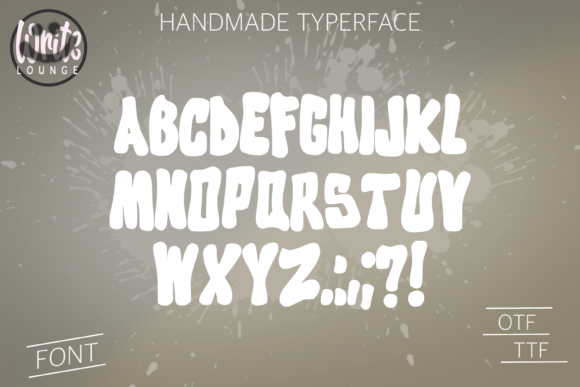
Unleash Your Creativity with Have a Break Font
Have you ever been in the middle of a design project, staring blankly at your screen, searching for that perfect font to bring your vision to life? That’s where the magic happens, and inspiration strikes. For designers who crave a touch of whimsy and a dash of nostalgia, we’ve got just the thing.
Meet Have a Break Font, a delightful display font designed to evoke a sense of good vibes and carefree spirit. Perfect for hippie-inspired flower projects, this font is sure to add a special retro touch to any design idea you can think of. Whether you’re working on a branding project, a social media campaign, or simply a personal art piece, Have a Break Font is a valuable addition to your design toolkit.
With its unique charm and retro flair, Have a Break Font is an instant mood booster for designers looking to add some personality to their work. So why not take a break from the ordinary and indulge in the delightful world of Have a Break Font?
Key Features of “Have a Break Font”
- Font Family: The “Have a Break Font” is a custom-designed sans-serif font, inspired by the classic Cadbury’s chocolate advertisements.
- Unique Characteristics: The font features a distinctive, rounded sans-serif design with a friendly and approachable feel, making it ideal for branding and advertising applications.
Have a Break Font Review
As a designer, I was excited to dive into the Have a Break Font, inspired by the iconic British chocolate bar. Here’s my honest take on this font.
- The font’s playful and fun vibe matches the brand’s personality.
- The letterforms are well-crafted, with a clear and legible design.
- The font’s weight and width variations provide flexibility for different design applications.
- The font’s rounded edges give it a soft and approachable feel.
- The font’s design may not be suitable for formal or professional projects.
- The font’s rounded edges may not be ideal for headings or titles that require boldness.
- The font’s width variations may not be suitable for narrow or long text blocks.
Overall, I think the Have a Break Font is a great choice for projects that require a fun and approachable vibe. While it may have some limitations, the font’s design is well-crafted and provides flexibility for different design applications. If you’re looking for a font that’s perfect for informal projects, social media, or advertising, the Have a Break Font is definitely worth considering.
Use the Have a Break Font for retro-themed designs, advertisements, or packaging. To get the most out of it, pair it with bold graphics and bright colors.
Experiment with different font sizes and styles to achieve a unique look.